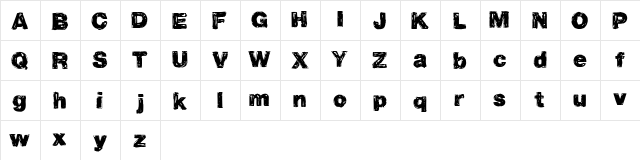
Vtks Propriedade Regular
| Foundry | douglas vitkauskas |
| Designer | douglas vitkauskas |
Design Context for Vtks Propriedade Typeface
Vtks Propriedade is a composed and adaptable typeface that performs quietly and consistently across a wide range of design contexts.